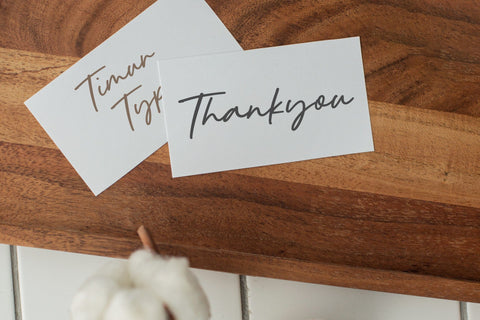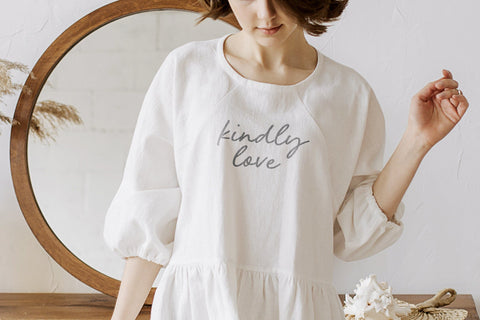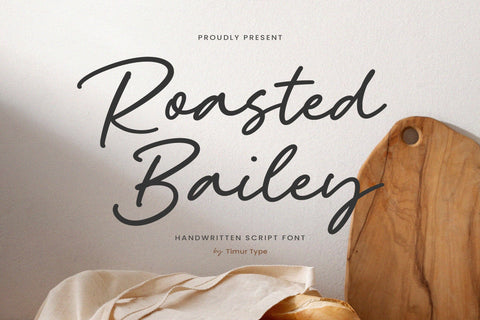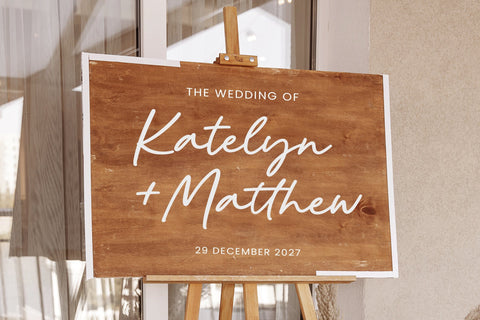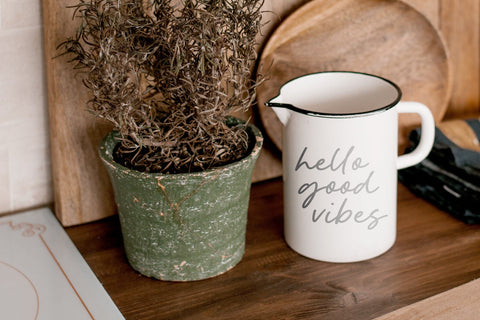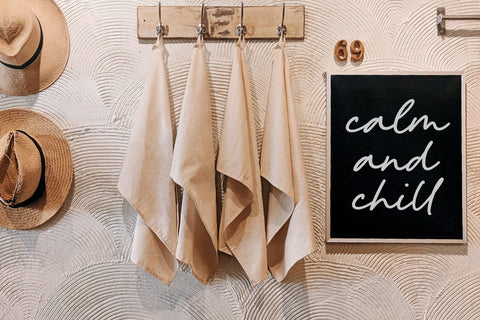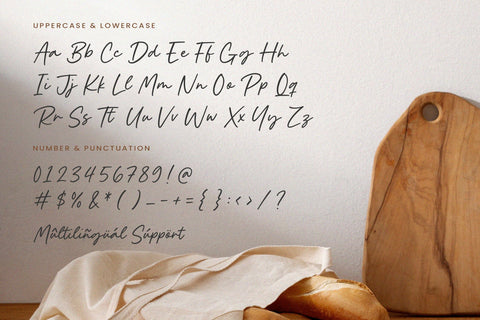
Roasted Bailey - Handwritten Script Font
Roasted Bailey is a Handwritten Script Font
This font takes you into a world of timeless elegance and individuality with the charm of a charming handwritten font. In a digital landscape dominated by uniformity, these fonts stand as a testament to the timeless charm of the human touch and artistic expression. Each letter becomes a brushstroke, and each word a canvas of authenticity, imbuing your designs with a distinct personality that goes beyond the ordinary. Handwritten script fonts captivate with their unique rhythm, celebrating the fluidity of handwriting and the spontaneity of creative expression. More than just typography, they are a bridge between analog and digital, a poetic dance between tradition and modernity. the true warmth these fonts bring, elevate your projects to a world where every word becomes a heartfelt brushstroke in a design masterpiece
Roasted Bailey Font also supports multilingualism.